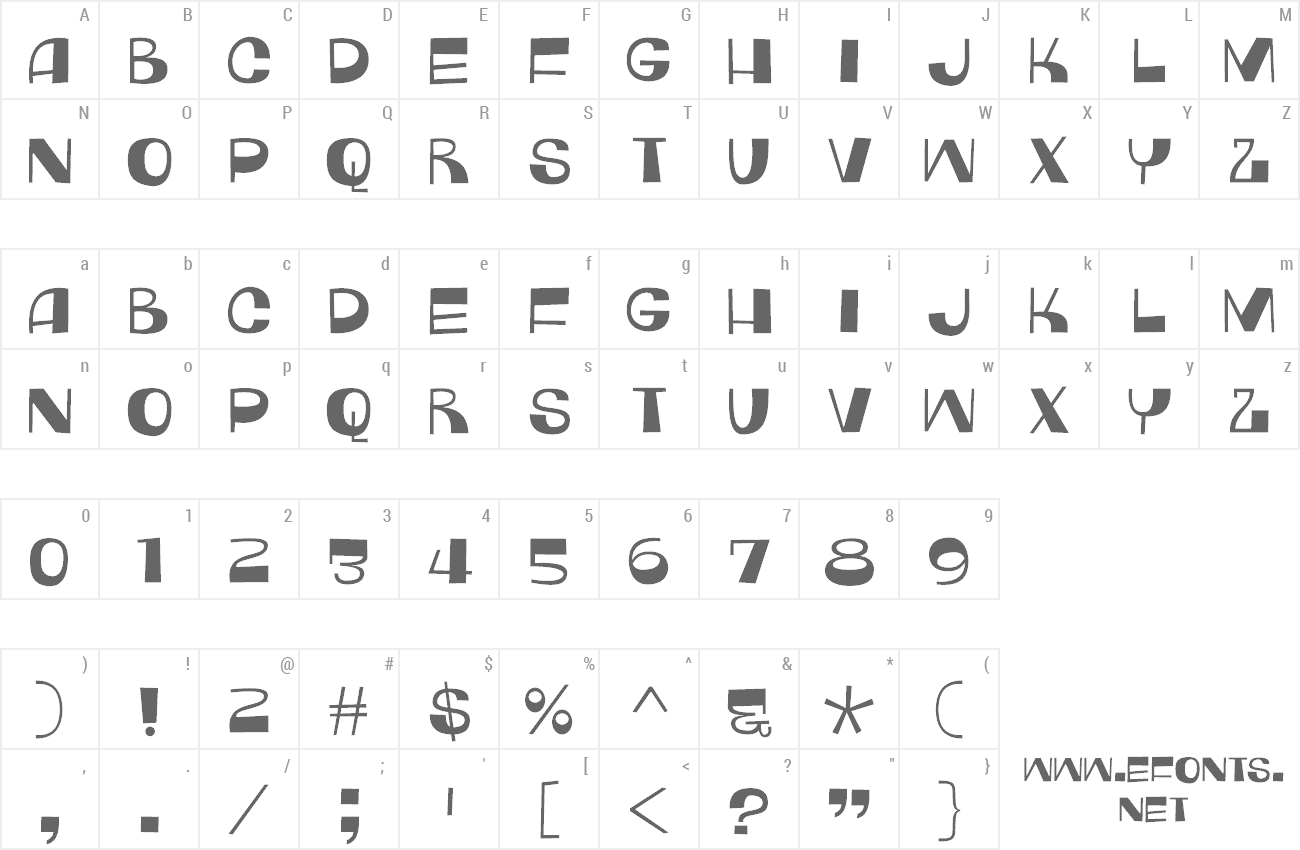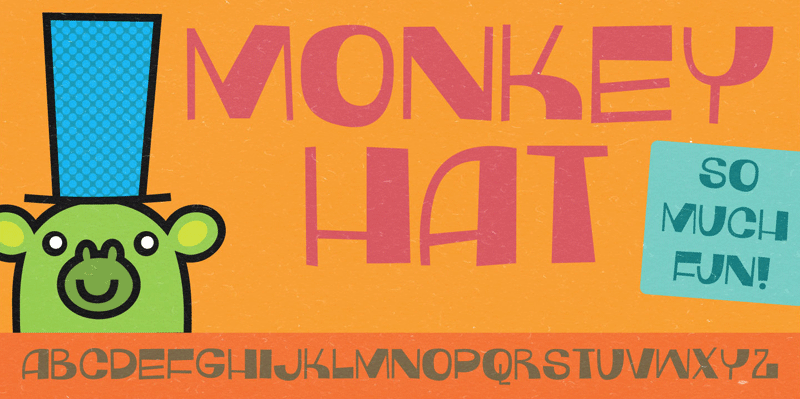
Preview and download Monkey Hat Font. Created by Pizzadude in Fancy Cartoon styles with Free for personal use license.
| Note by Pizzadude | |
| Monkey Hat is a playful font with a twist of art deco. The shareware version comes with cool ligatures to make the font appear even more monkey ... oh, sorry ... I meant funky! :) |